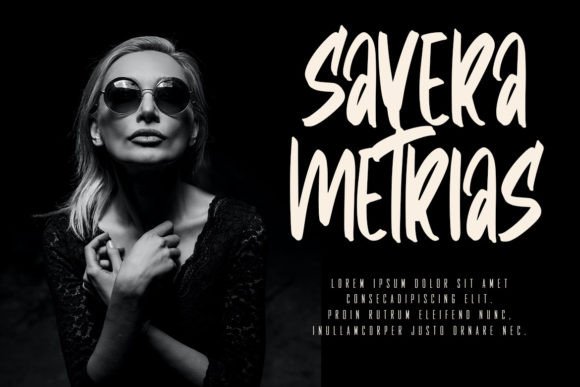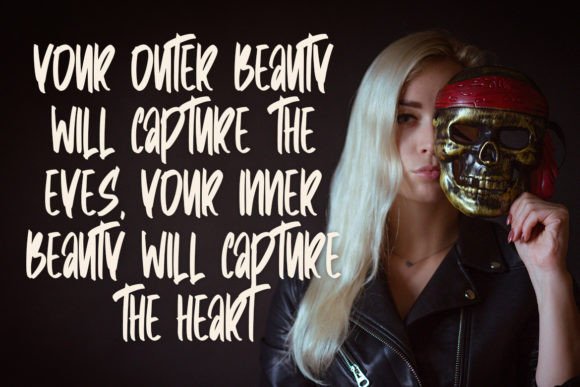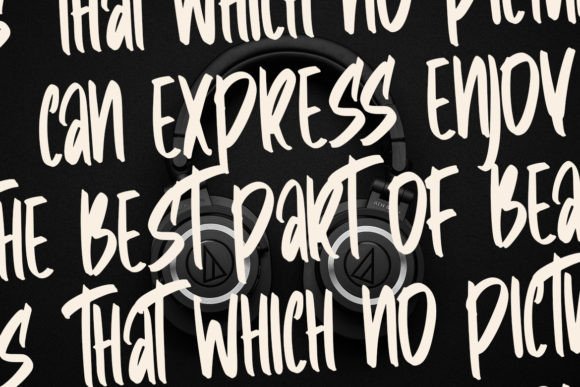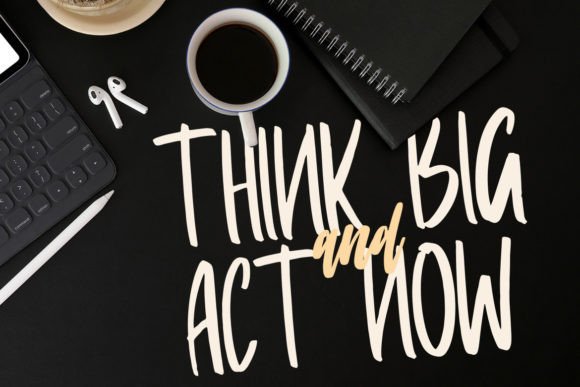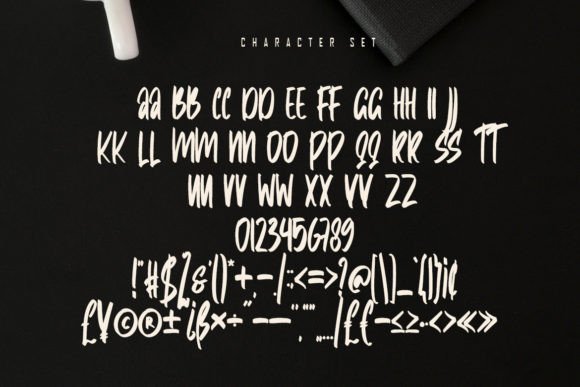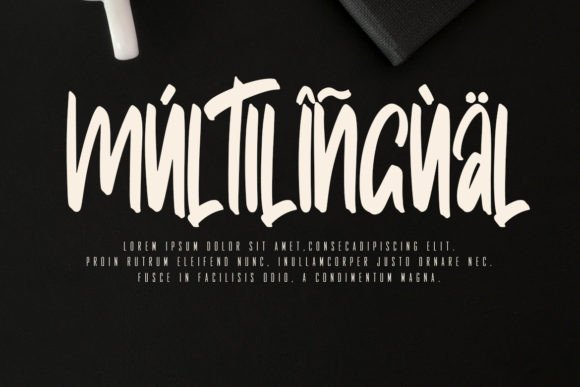
About Satriya Font
Satriya font is a unique, elegant, and bold handwritten typeface designed to add personality and sophistication to your creative projects. When you download Satriya font, you gain access to a versatile font that elevates any design with its distinctive, handcrafted charm.
Unique and Bold Design
Satriyafont stands out with its bold strokes and elegant style. This font’s unique design offers a modern twist on traditional handwriting, making it perfect for designers seeking a personalized, eye-catching font. Its boldness ensures your text commands attention without sacrificing elegance.
Perfect for Personalized Projects
Whether you’re designing wedding invitations, logos, branding materials, or social media graphics, Satriyafont delivers a strong, personal touch. It works well for projects that require a confident yet sophisticated handwritten style, making your designs memorable and impactful.
Versatile Usage Across Various Media
Satriyafont adapts seamlessly to many design contexts. Use it on product packaging, posters, greeting cards, or websites to inject personality and flair. Its balance of boldness and elegance makes it suitable for both formal and casual projects.